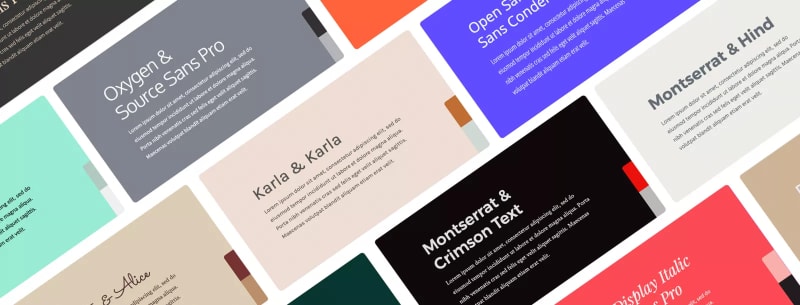
Top 50 Google Font Pairings [Handpicked by Pro Designers]
Selecting the right fonts can significantly impact website design. The post showcases 50 handpicked Google font pairings categorized by styles such as classic, elegant, modern, creative, and minimalist. These combinations are chosen for their legibility, design flexibility, and overall aesthetic. Suggestions are provided to inspire your next project, and readers are encouraged to experiment with Pagecloud's editor and site-wide color feature.